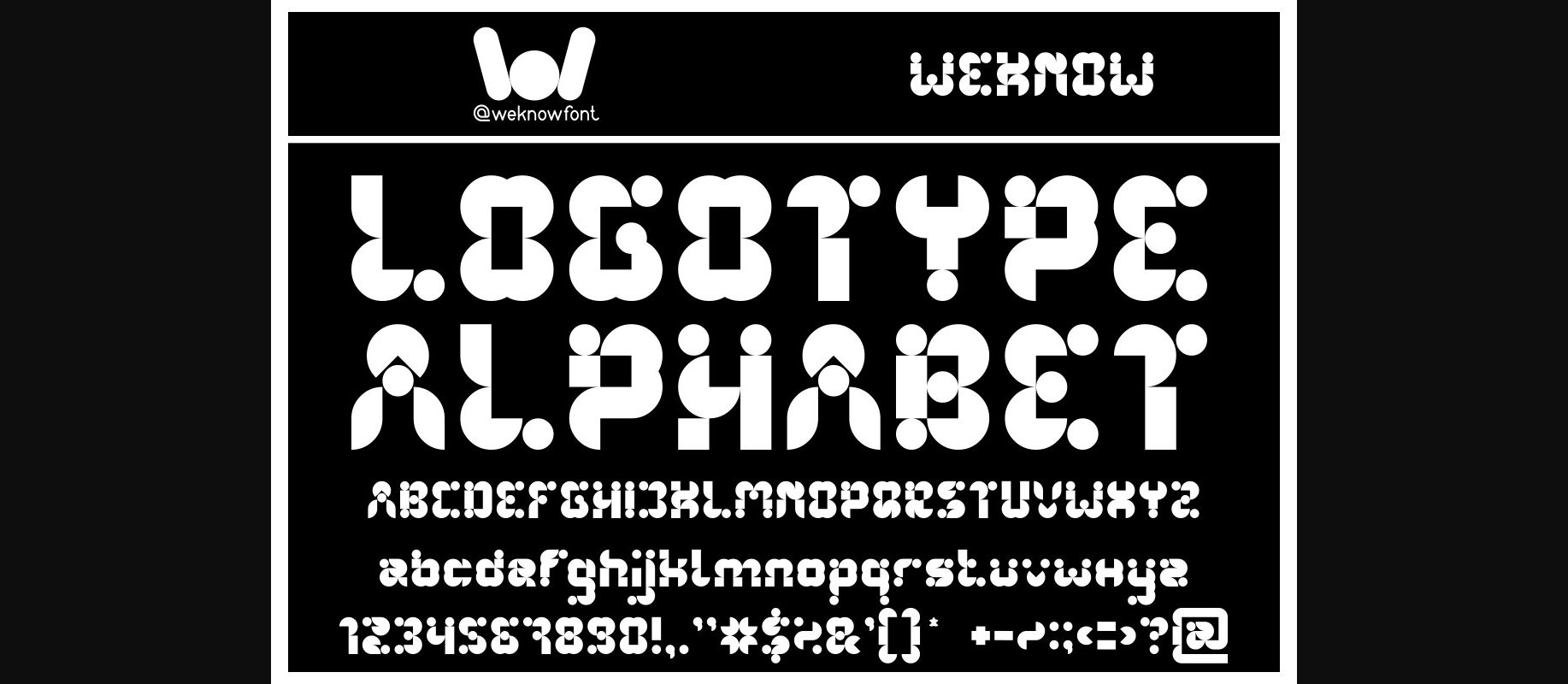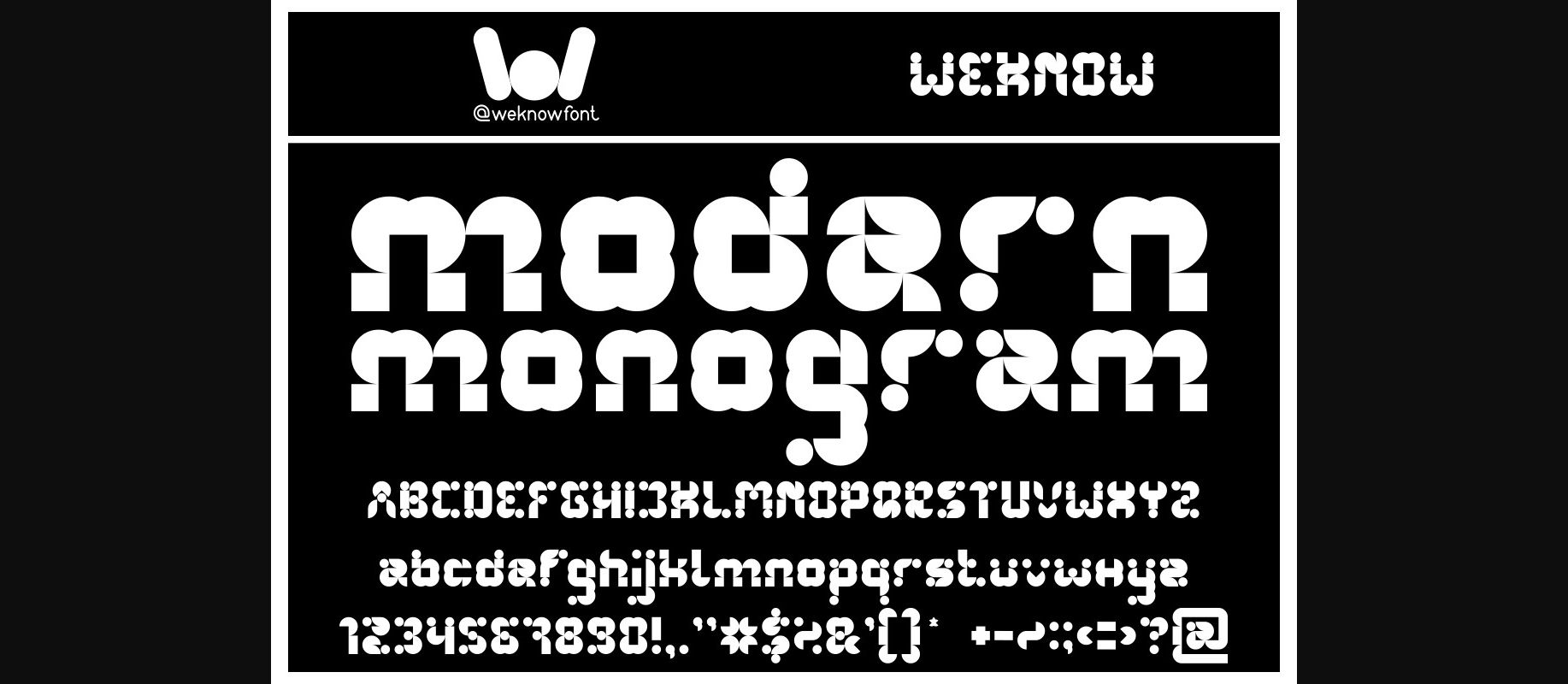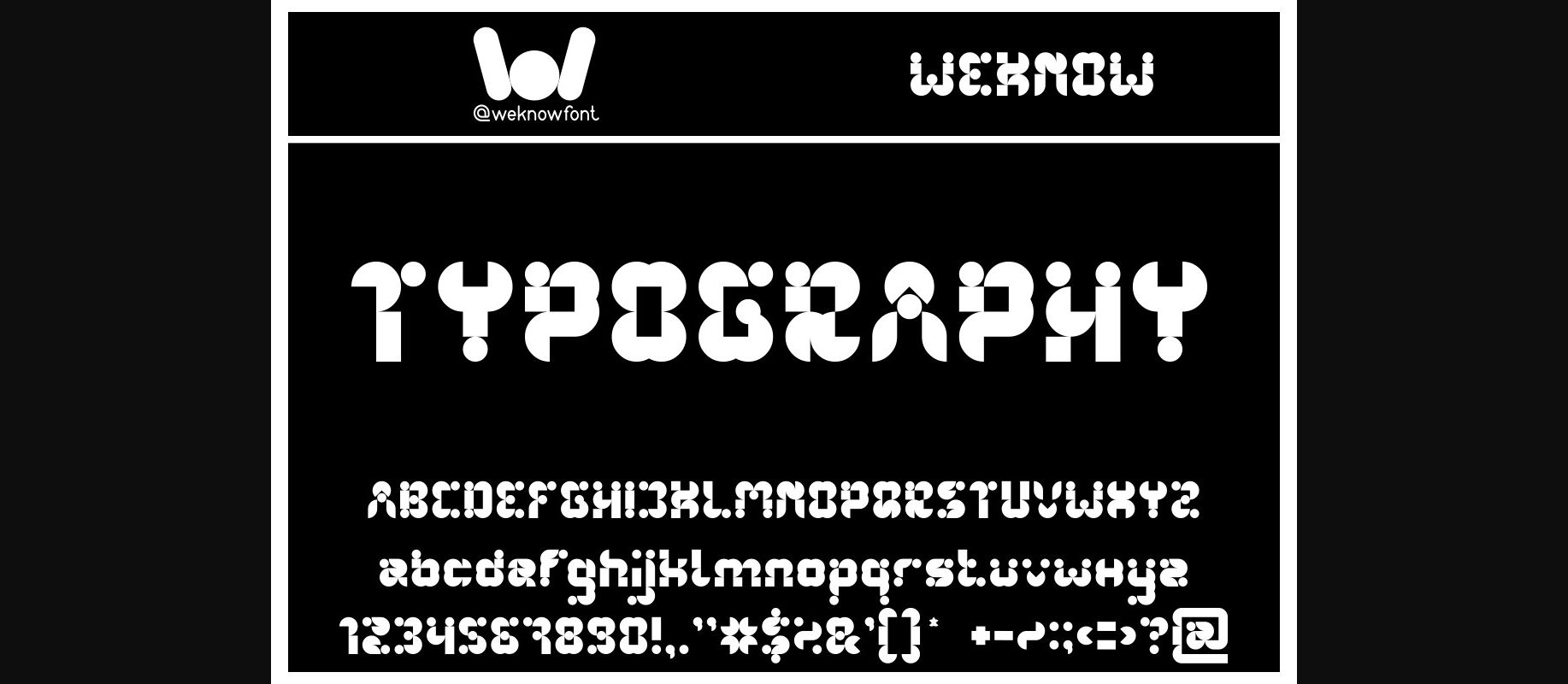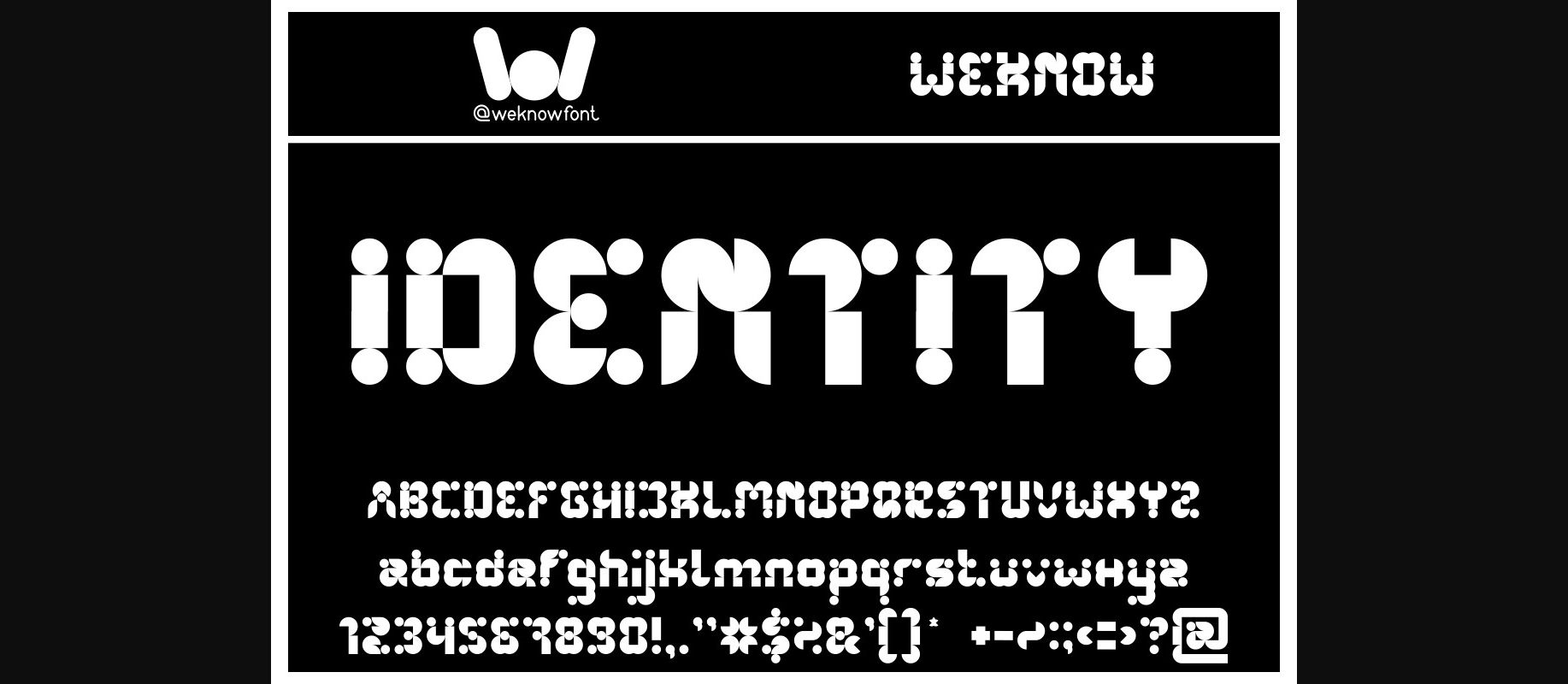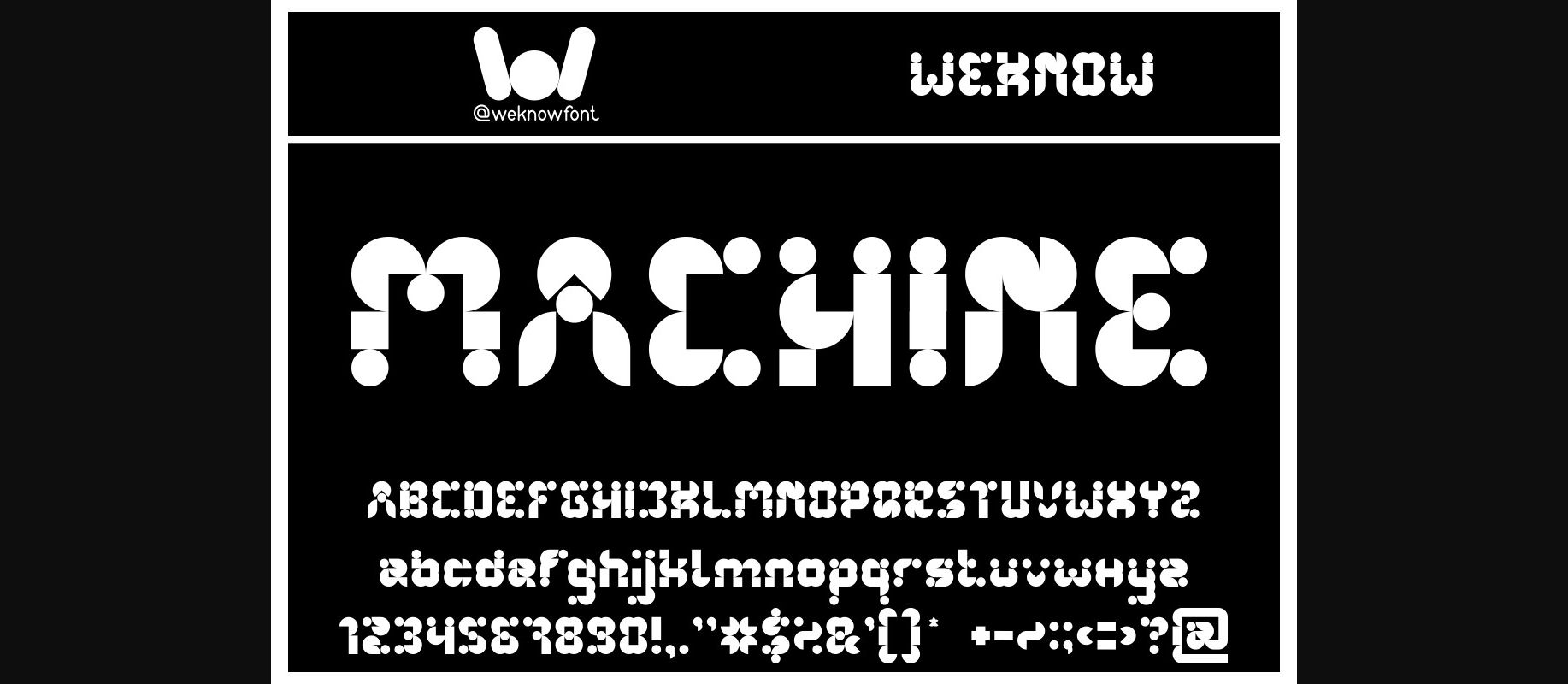
Logotype Alphabet Font
About Logotype Alphabet Font
Logotype Alphabet is a modern monogram decorative font suitable for a logo, logotype, headline, corporate identity, brand identity, apparel industry, poster, music, movie, game, magazine, book, comic, cartoon, YouTube, Instagram, website, or any of your creative design projects.